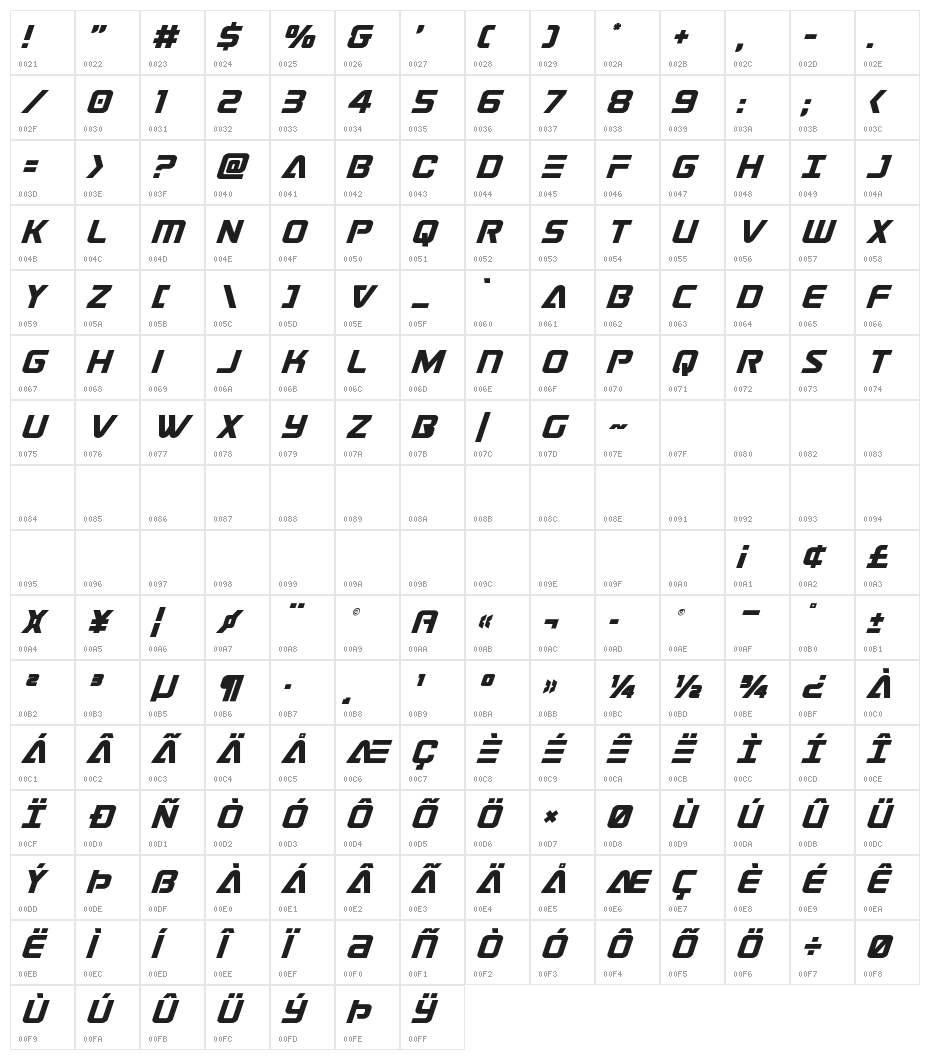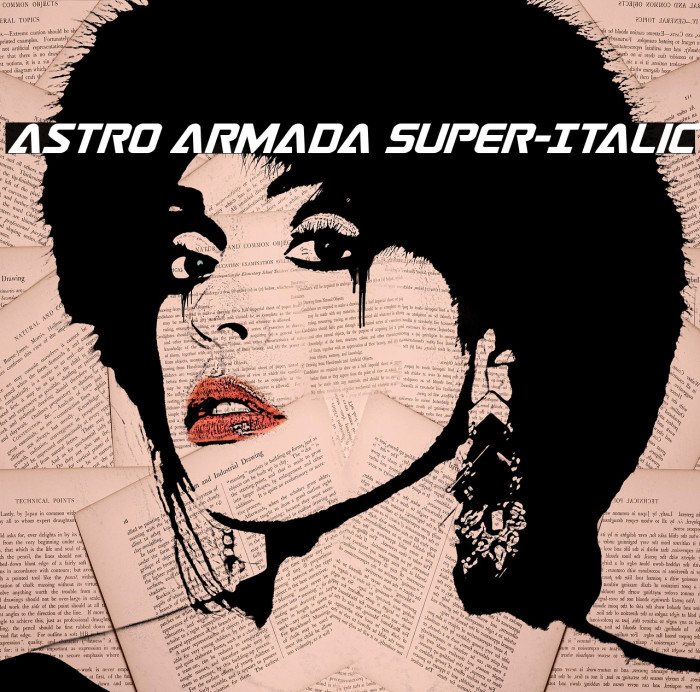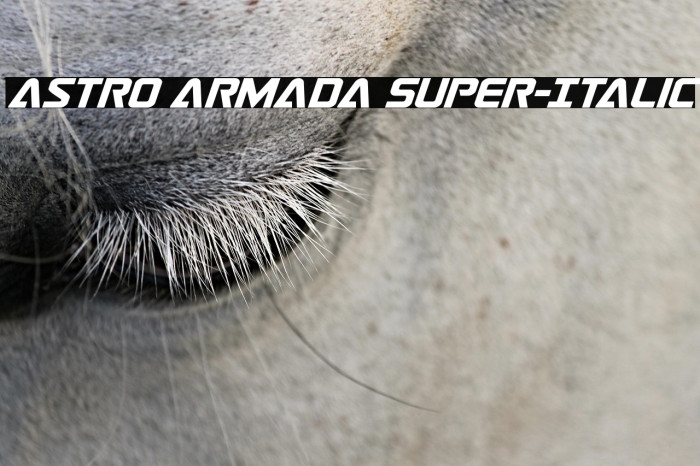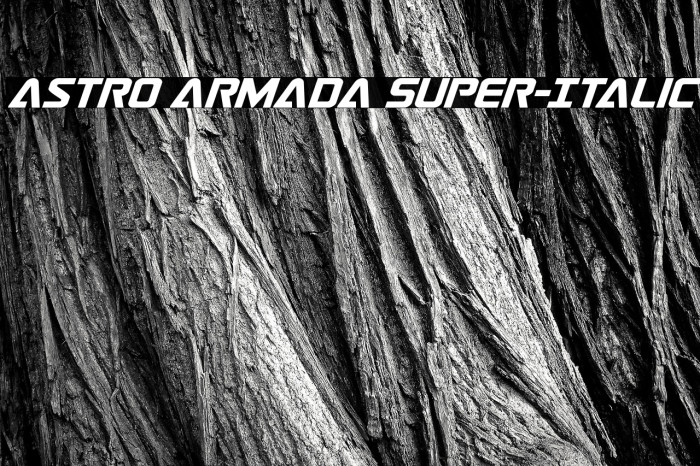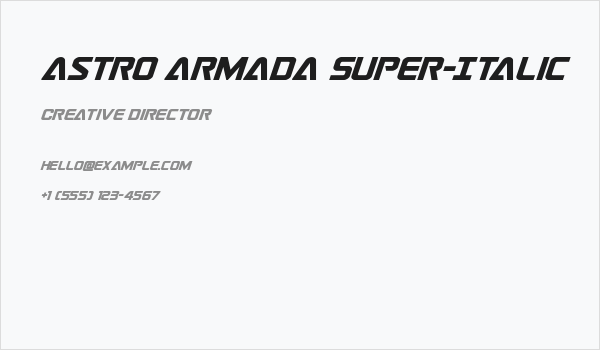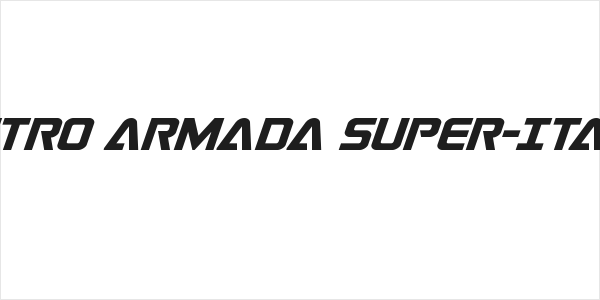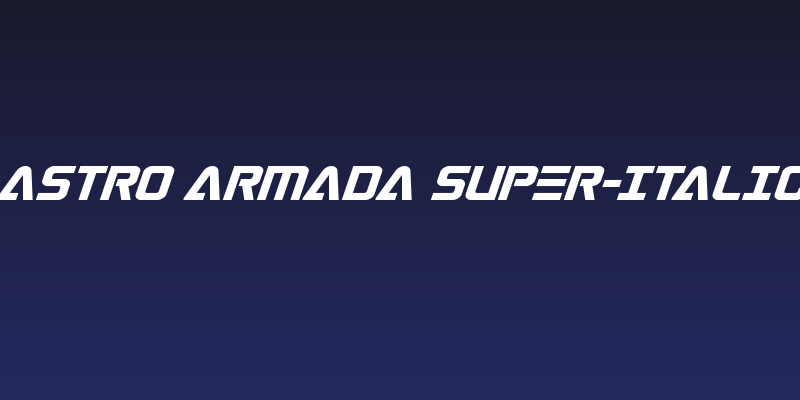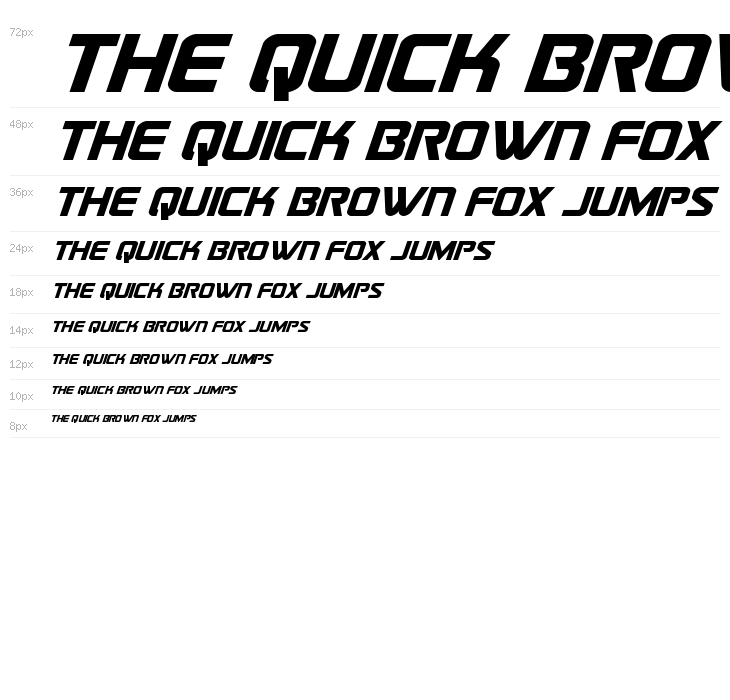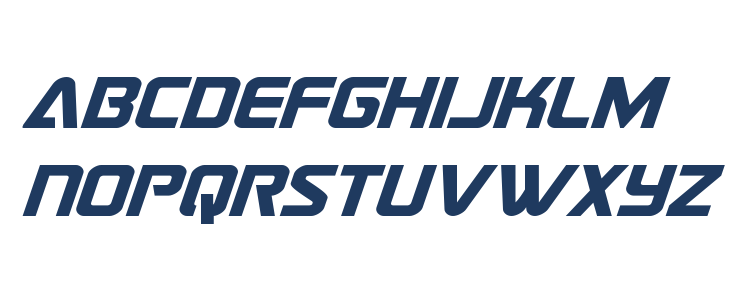
Astro Armada Super-Italic Font
Astro Armada Super-Italic Description
This font features a dynamic and futuristic design with a strong italic slant, giving it a sense of motion and speed. The characters are bold and angular, with sharp edges and a geometric structure that conveys a modern and technological feel. The uppercase and lowercase letters maintain a consistent style, with the lowercase slightly smaller but equally impactful. Numbers and special characters are designed to match the overall aesthetic, ensuring uniformity across all text elements. The font's distinct style makes it suitable for projects that require a bold and energetic look.
| Proposed Projects | Ideal for sci-fi themed posters, video game titles, technology branding, and sports team logos. |